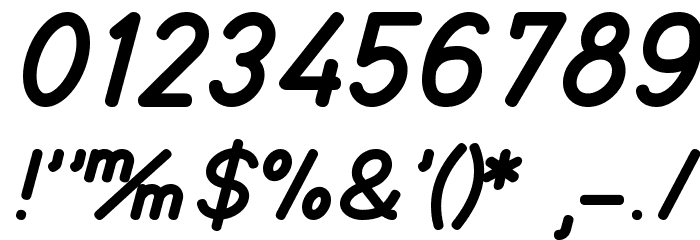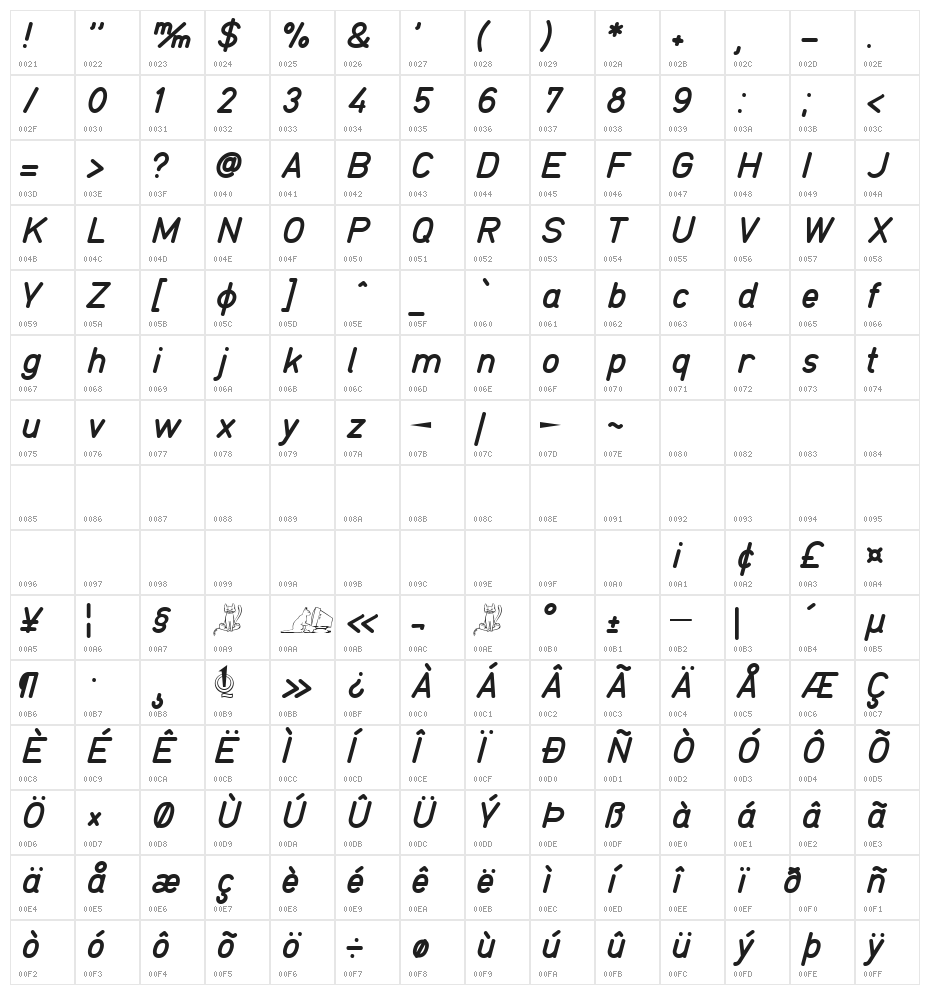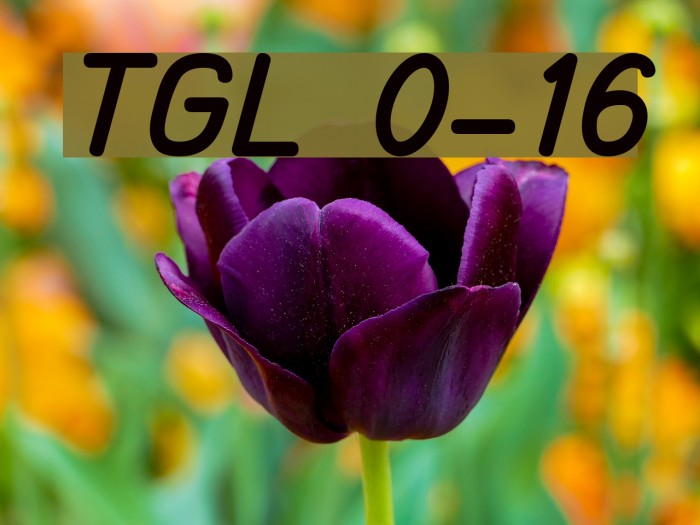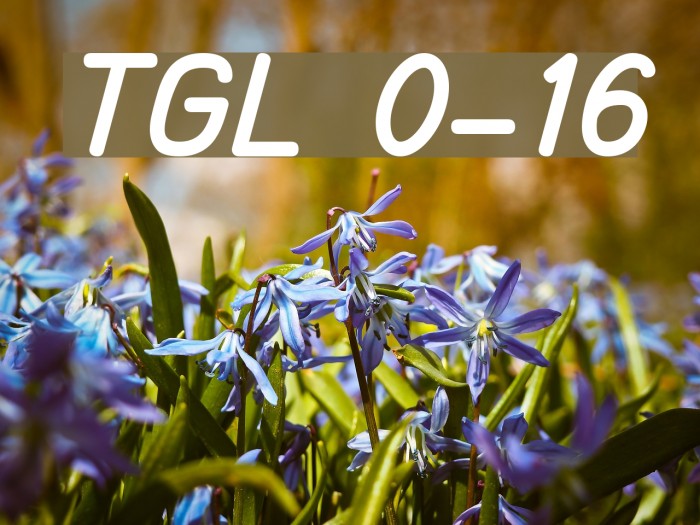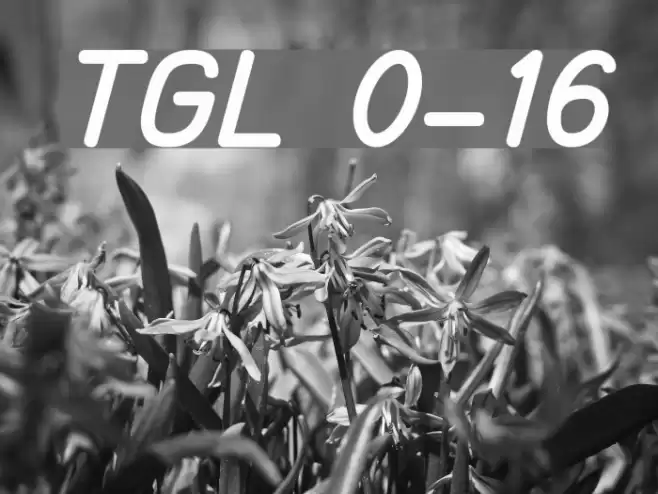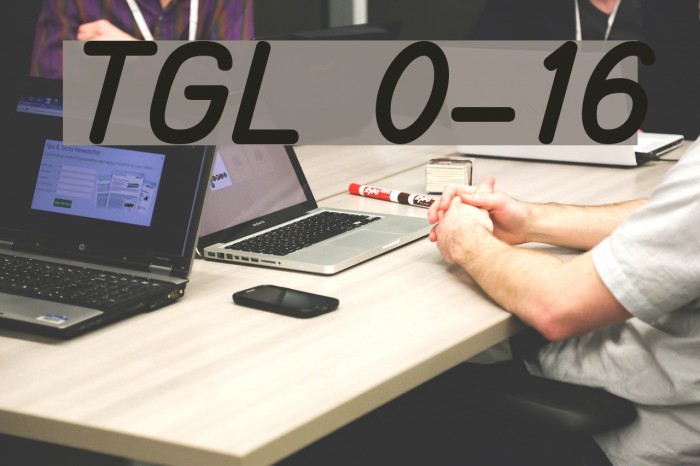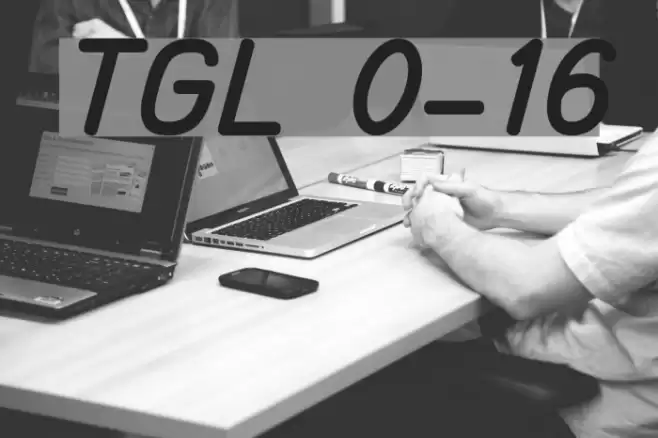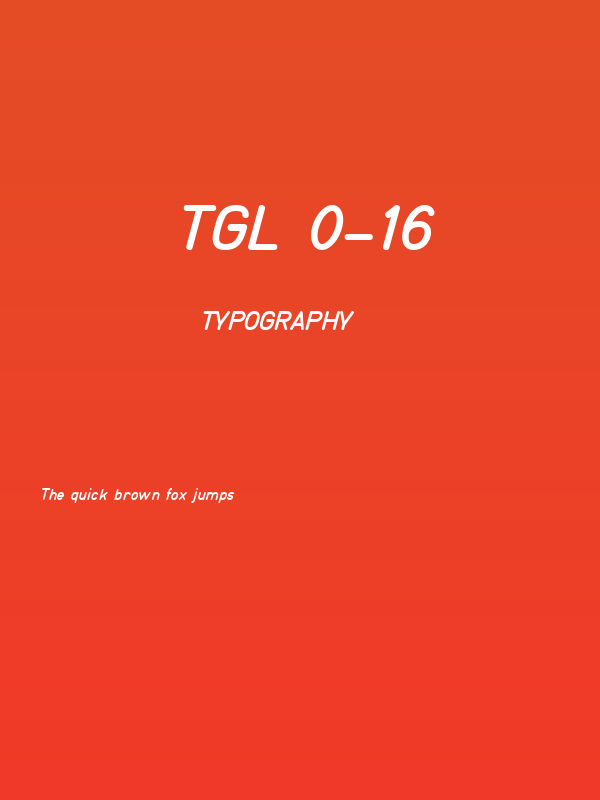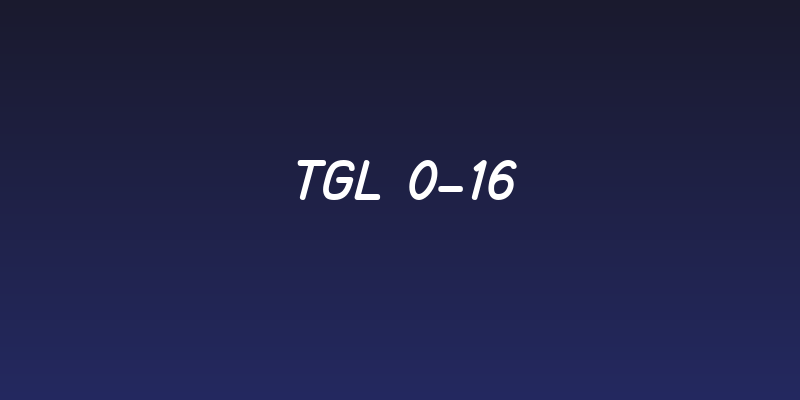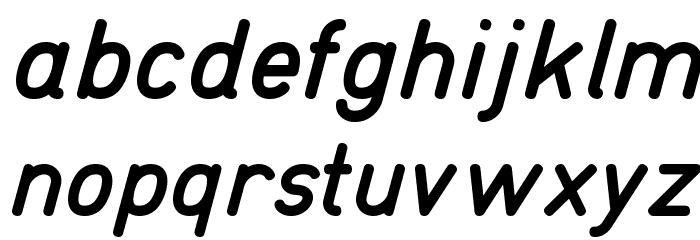
TGL 0-16 Font
TGL 0-16 Description
This font features a modern and sleek sans-serif style with a slight slant, giving it an italicized appearance. The characters are well-proportioned with smooth curves and clean lines, making it highly legible. The font maintains a consistent stroke width throughout, contributing to its uniform look. It includes a full set of uppercase and lowercase letters, numerals, and a variety of special characters. The overall design is contemporary, suitable for digital and print media, and offers a professional yet approachable aesthetic.
Use CaseHeadlines, Body text, Logos
Proposed ProjectsIdeal for branding, advertising, digital interfaces, and editorial design.